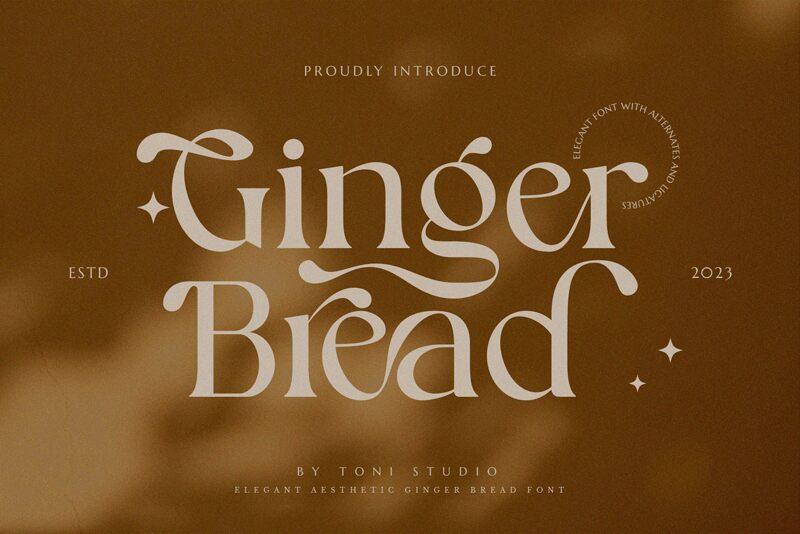
Ginger Bread
Introducing "Ginger Bread", a beautiful serif font designed by ToniStudio. This versatile typeface is perfect for a wide range of projects, from elegant invitations and wedding stationery to sophisticated branding and logo designs. Its graceful curves and modern aesthetic will add a touch of sophistication to any design, while still maintaining a classic and timeless feel.
One of the standout features of Ginger Bread is its collection of fun alternative characters, allowing you to create harmonious and unique designs effortlessly. Whether you're working on nostalgic mood boards or vintage-inspired logos, this font will bring your vision to life with its charming and versatile style.
With both lowercase and uppercase letters, as well as numbers, punctuation marks, and unique multilingual characters, Ginger Bread offers everything you need to make your design truly exceptional. Elevate your next project with the elegance and charm of Ginger Bread font.